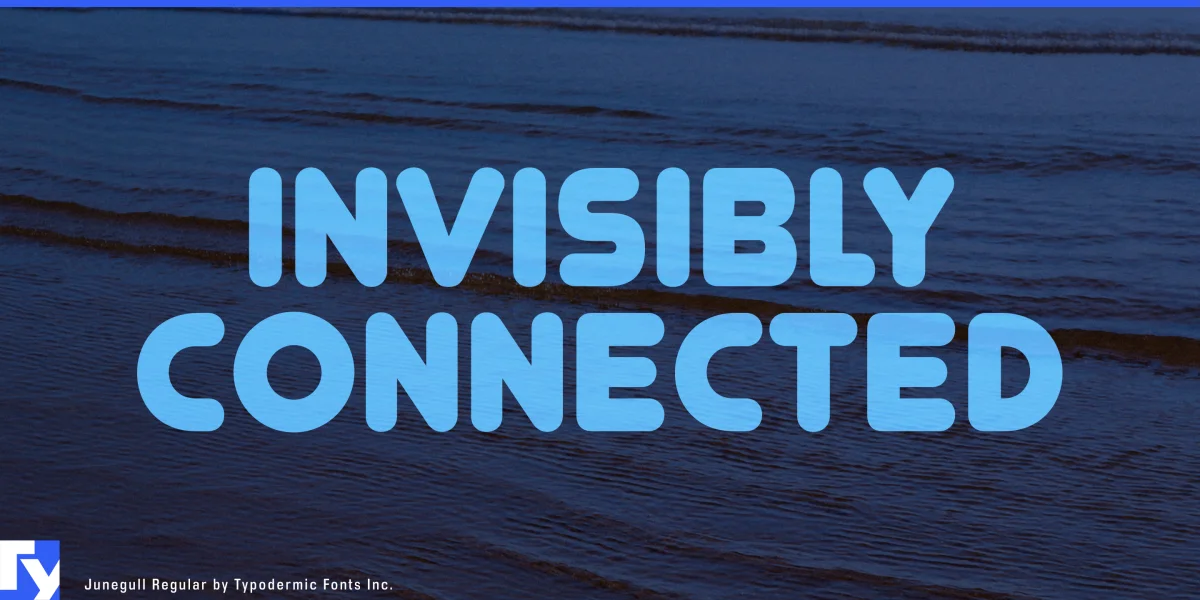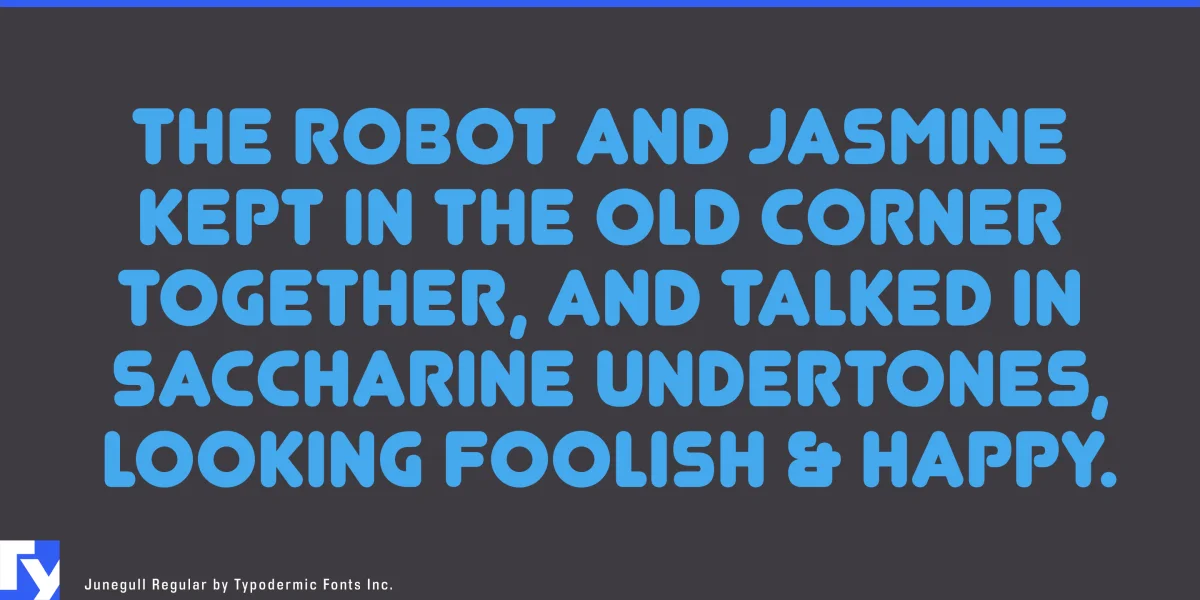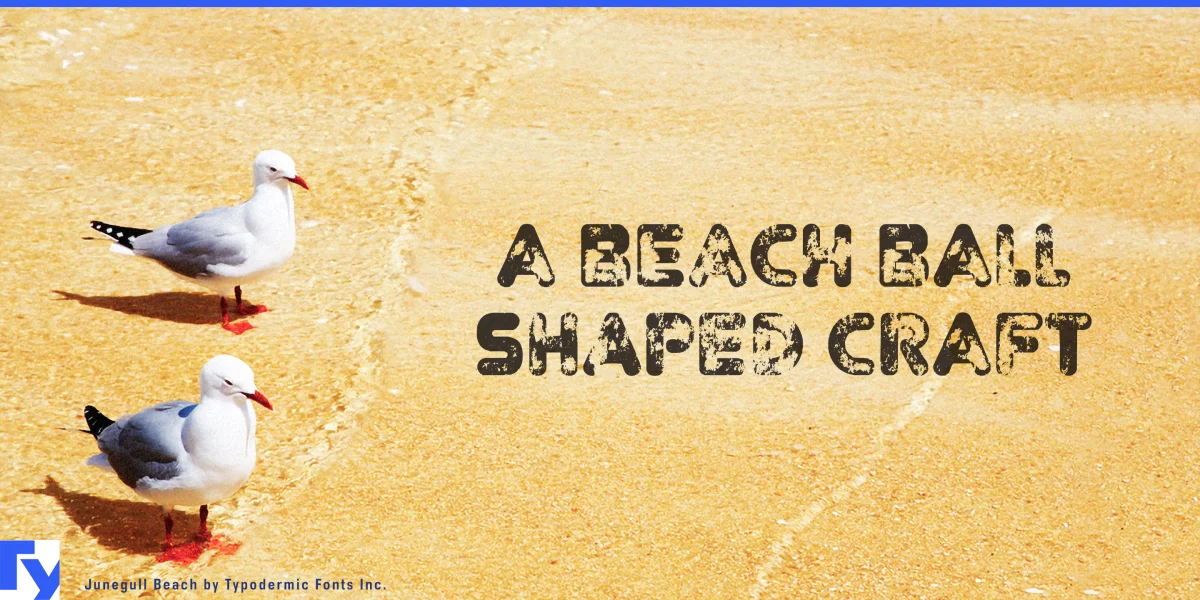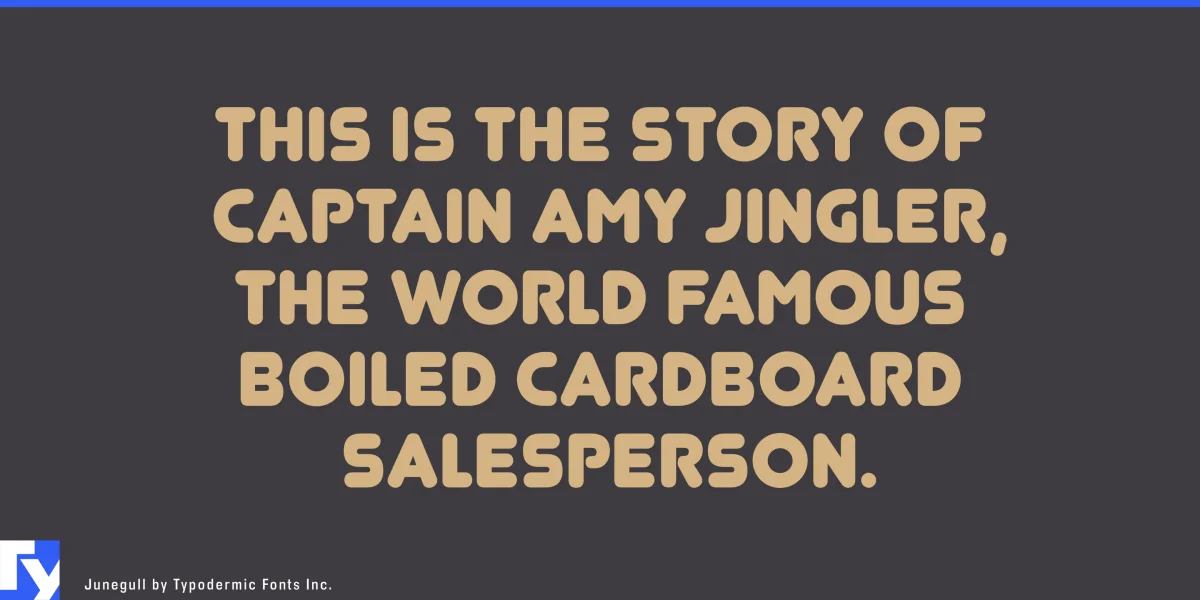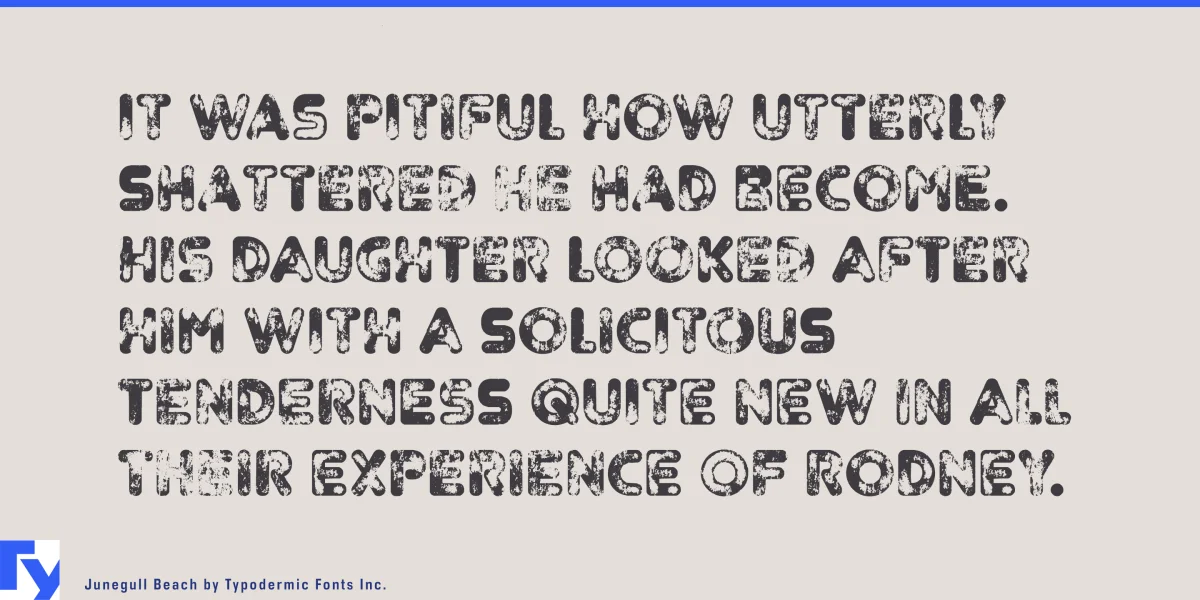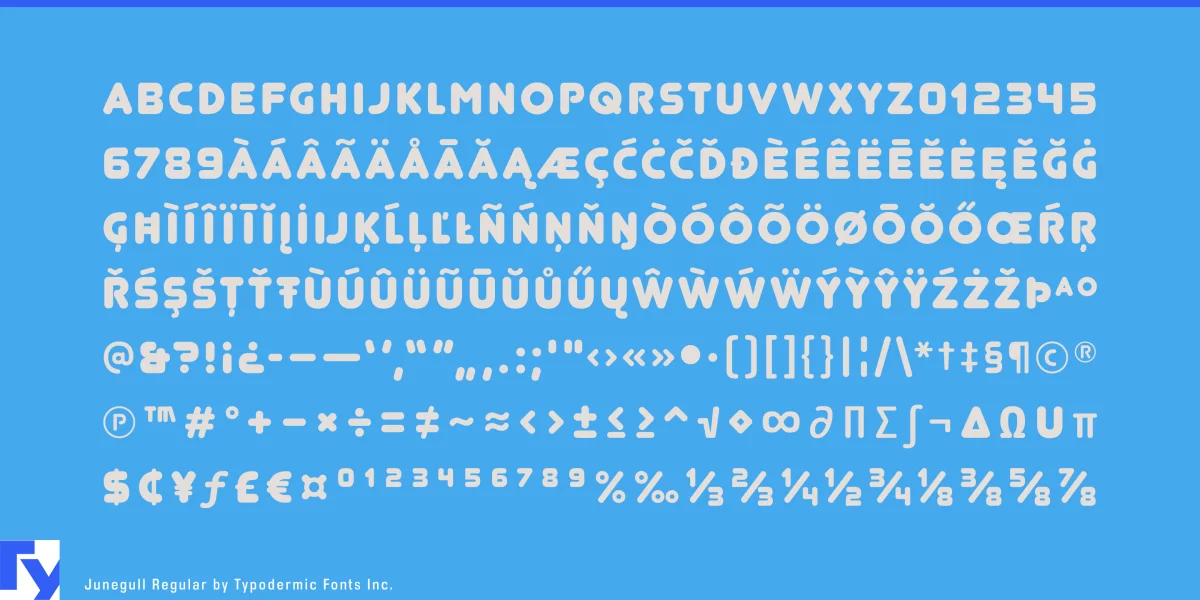
Junegull is a friendly, all-caps rounded sans. It's both technological and gentle, like a murderous mechanical teddy bear. Junegull Beach is the wilder sibling. When you use Junegull Beach in an OpenType-aware application, common letter pairs will be substituted by tailor-made pairs for a more realistic, sandy feel. Most Latin-based European writing systems are supported, including the following languages. Afaan Oromo, Afar, Afrikaans, Albanian, Alsatian, Aromanian, Aymara, Bashkir (Latin), Basque, Belarusian (Latin), Bemba, Bikol, Bosnian, Breton, Cape Verdean, Creole, Catalan, Cebuano, Chamorro, Chavacano, Chichewa, Crimean Tatar (Latin), Croatian, Czech, Danish, Dawan, Dholuo, Dutch, English, Estonian, Faroese, Fijian, Filipino, Finnish, French, Frisian, Friulian, Gagauz (Latin), Galician, Ganda, Genoese, German, Greenlandic, Guadeloupean Creole, Haitian Creole, Hawaiian, Hiligaynon, Hungarian, Icelandic, Ilocano, Indonesian, Irish, Italian, Jamaican, Kaqchikel, Karakalpak (Latin), Kashubian, Kikongo, Kinyarwanda, Kirundi, Kurdish (Latin), Latvian, Lithuanian, Lombard, Low Saxon, Luxembourgish, Maasai, Makhuwa, Malay, Maltese, Māori, Moldovan, Montenegrin, Ndebele, Neapolitan, Norwegian, Novial, Occitan, Ossetian (Latin), Papiamento, Piedmontese, Polish, Portuguese, Quechua, Rarotongan, Romanian, Romansh, Sami, Sango, Saramaccan, Sardinian, Scottish Gaelic, Serbian (Latin), Shona, Sicilian, Silesian, Slovak, Slovenian, Somali, Sorbian, Sotho, Spanish, Swahili, Swazi, Swedish, Tagalog, Tahitian, Tetum, Tongan, Tshiluba, Tsonga, Tswana, Tumbuka, Turkish, Turkmen (Latin), Tuvaluan, Uzbek (Latin), Venetian, Vepsian, Võro, Walloon, Waray-Waray, Wayuu, Welsh, Wolof, Xhosa, Yapese, Zapotec Zulu and Zuni.